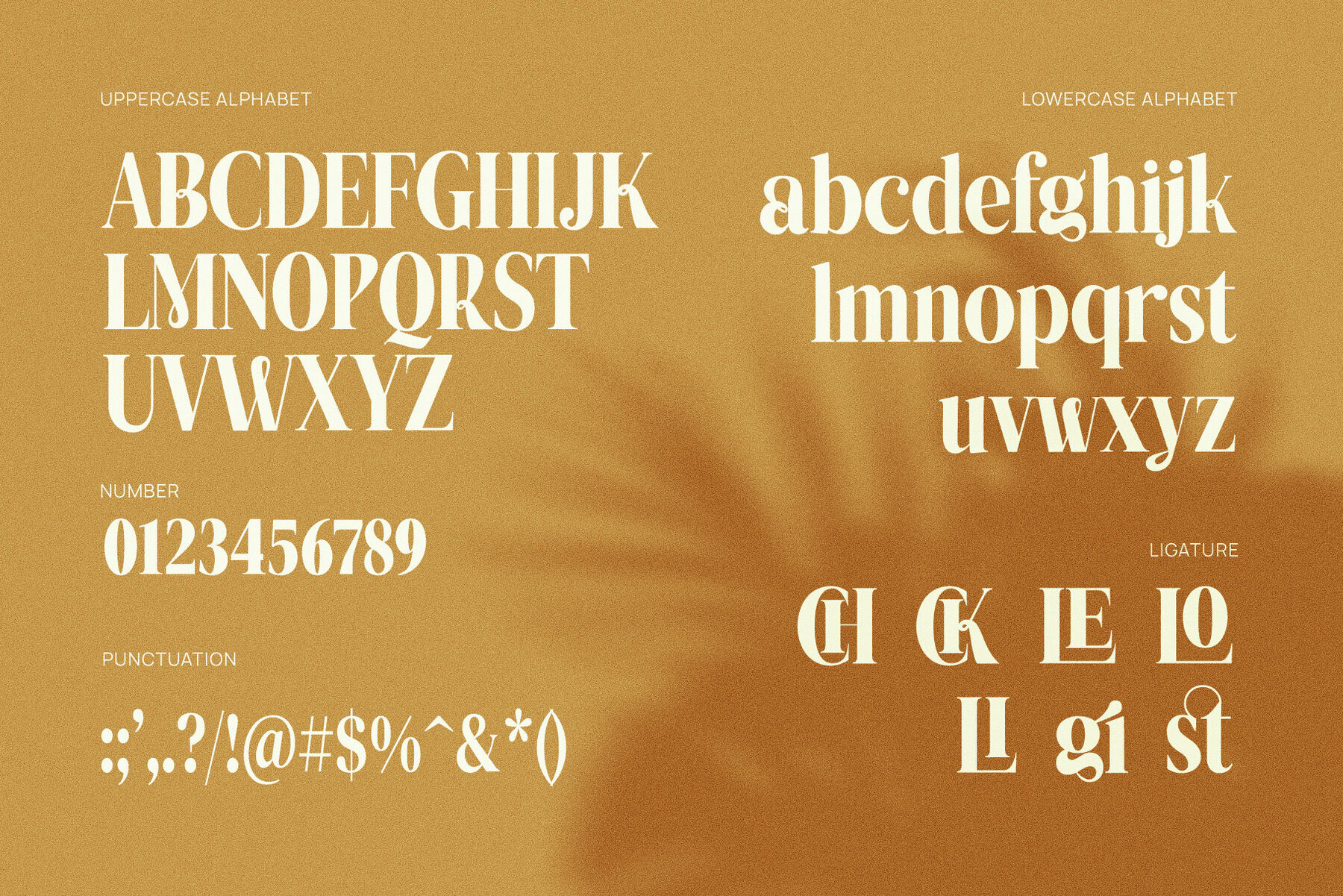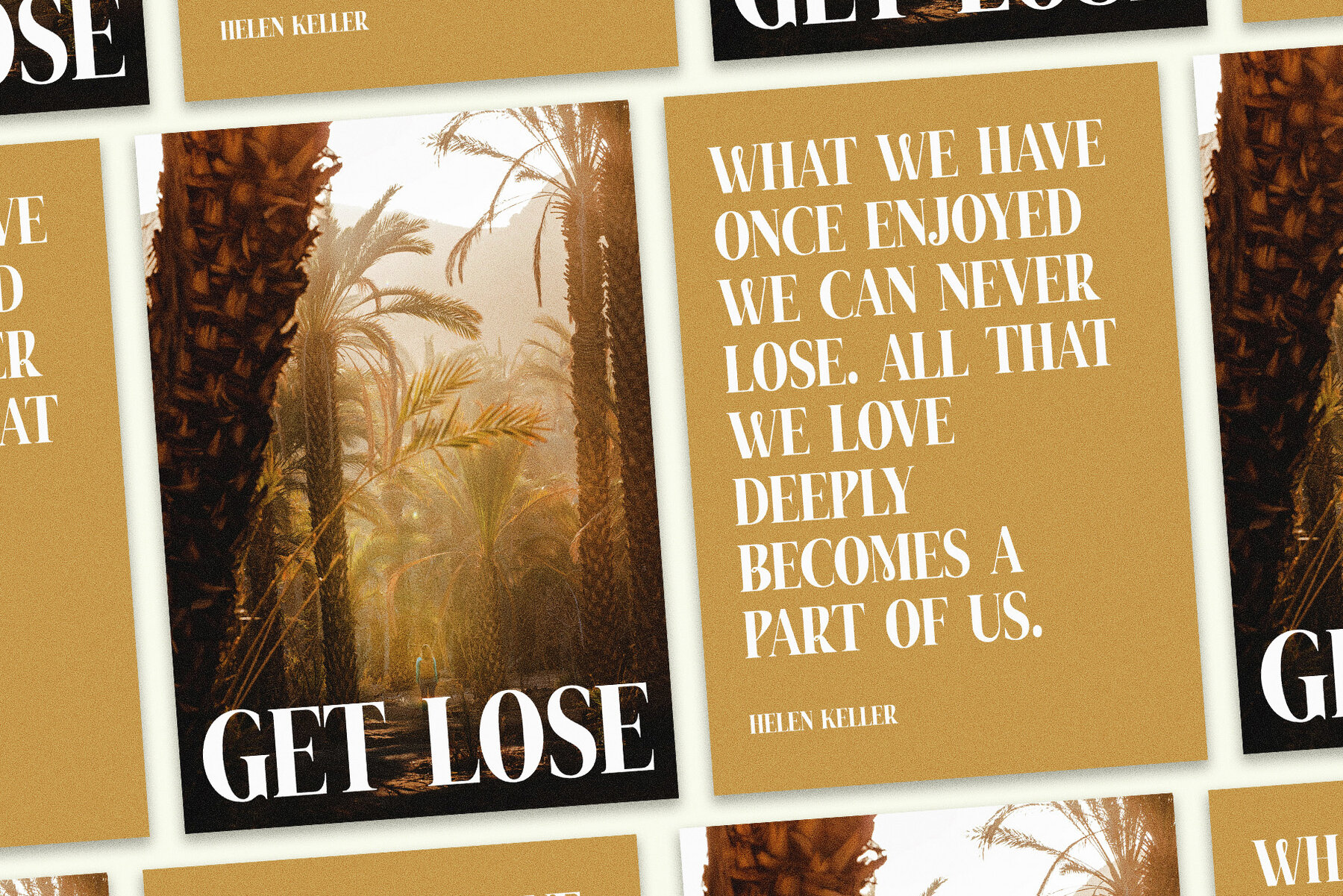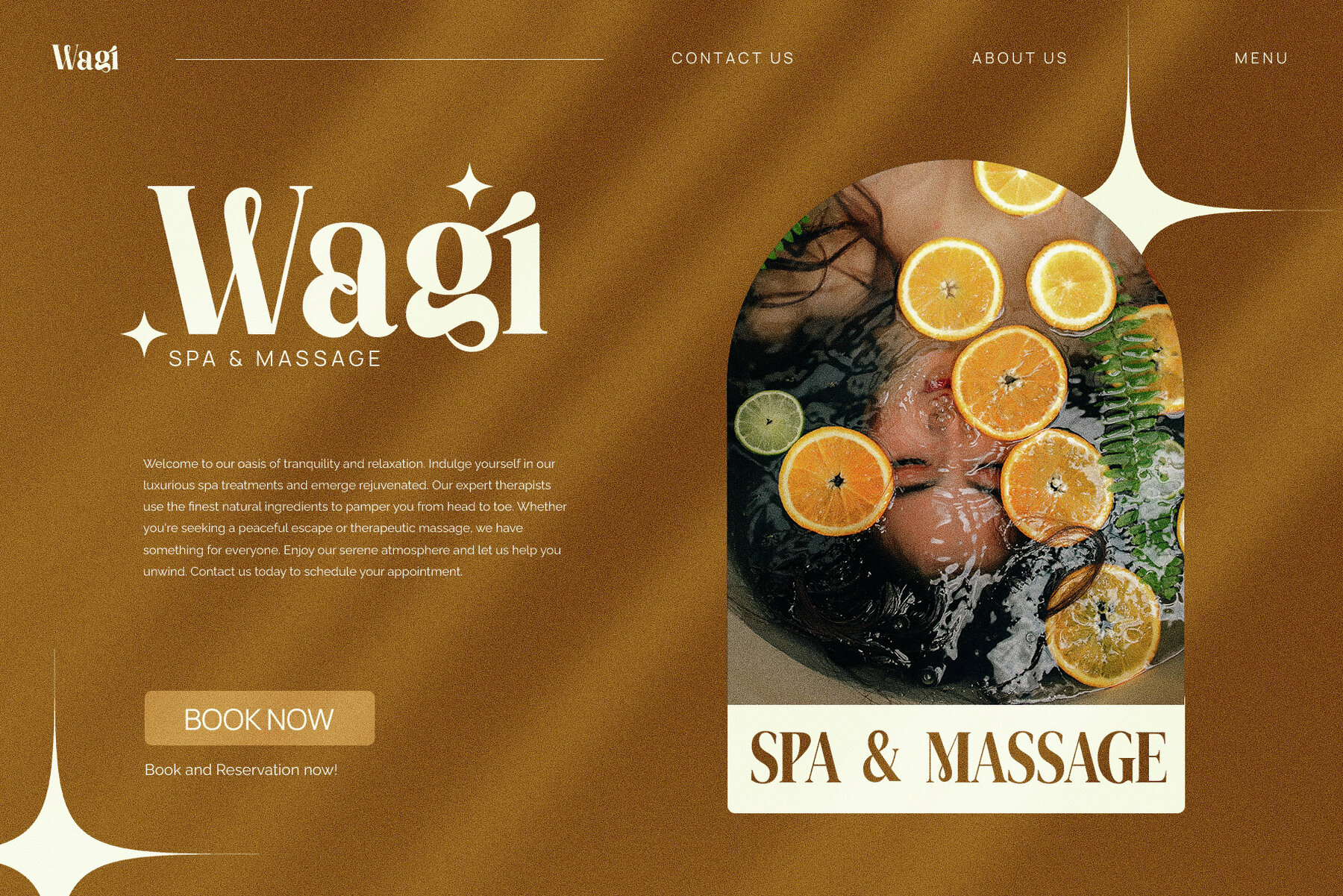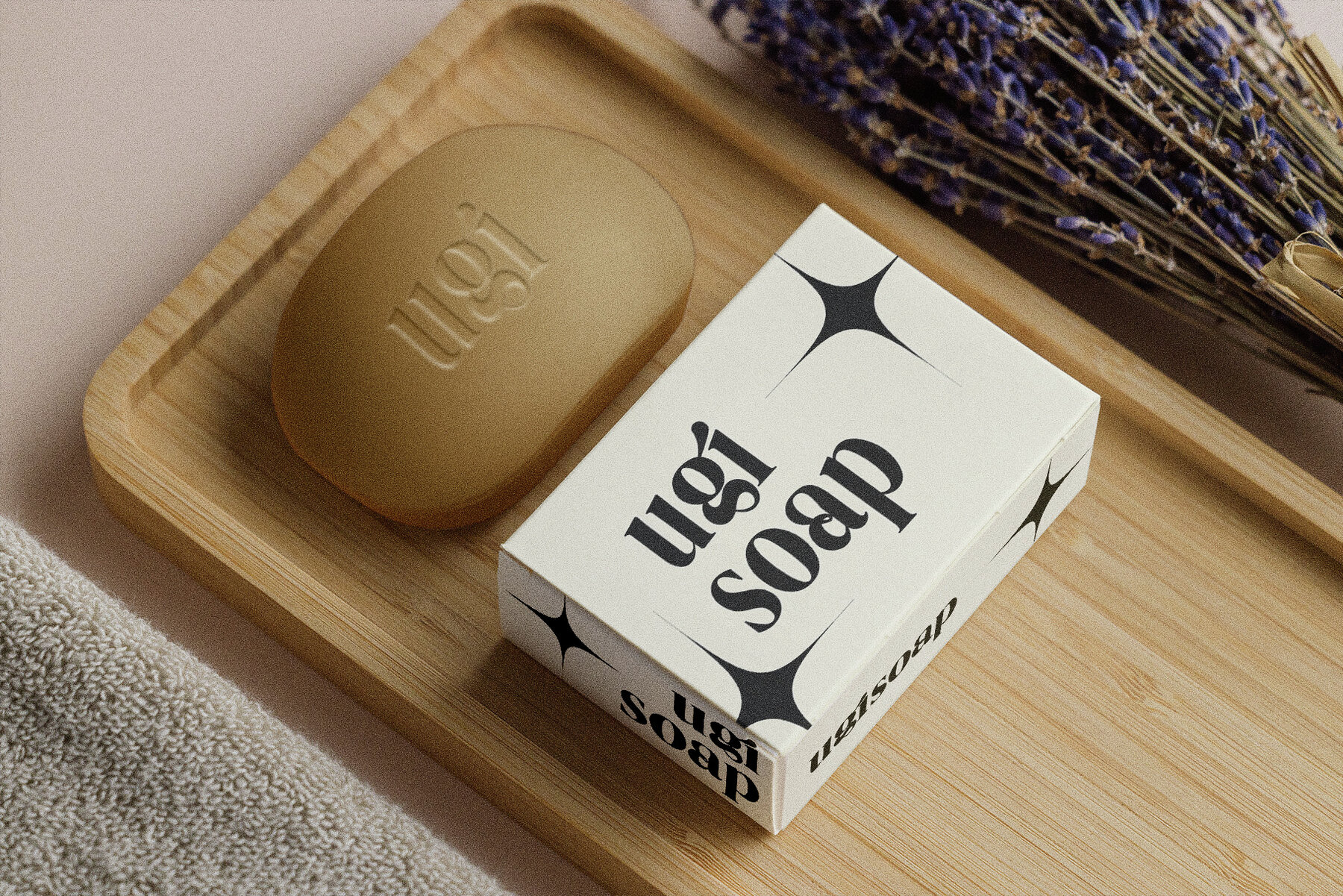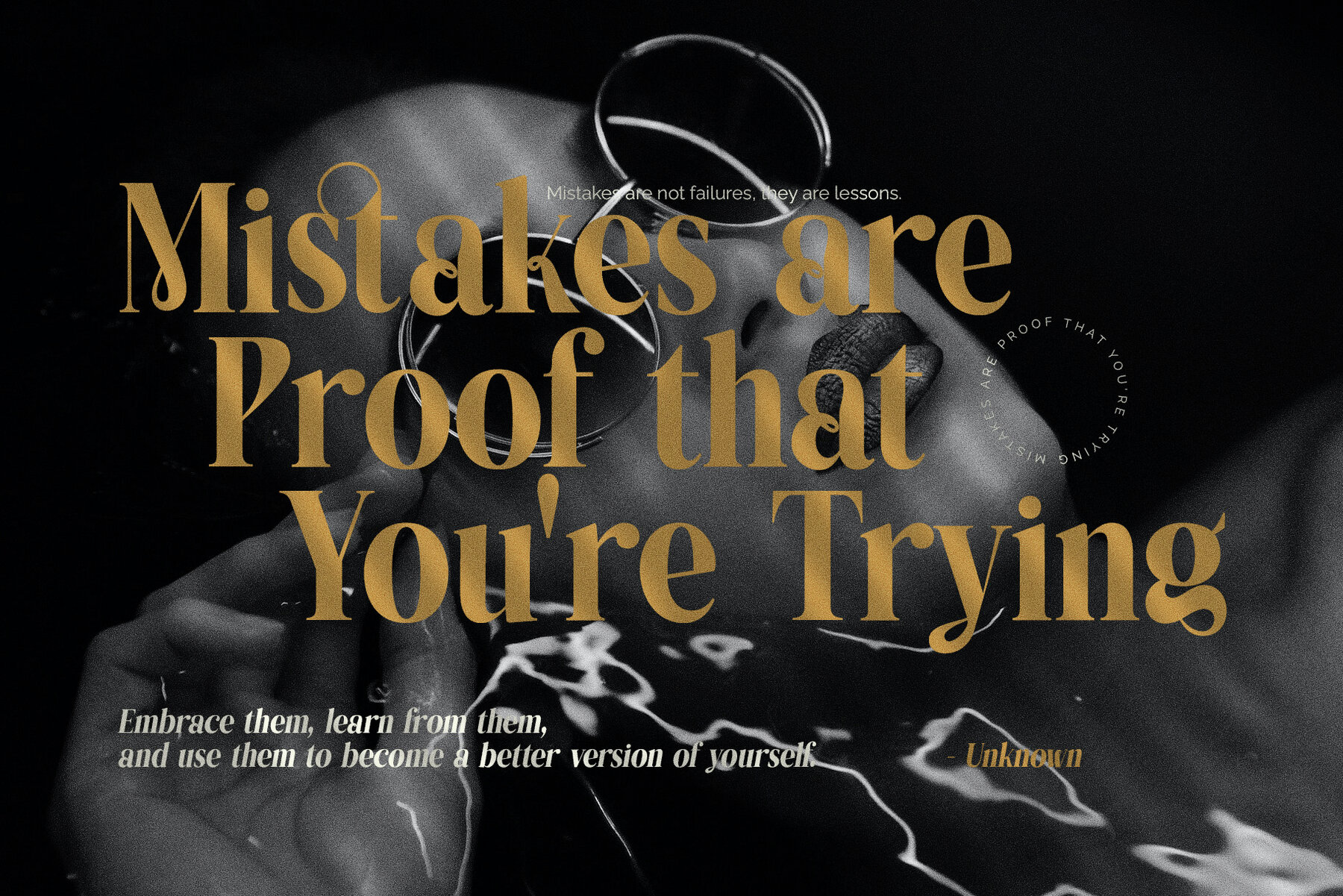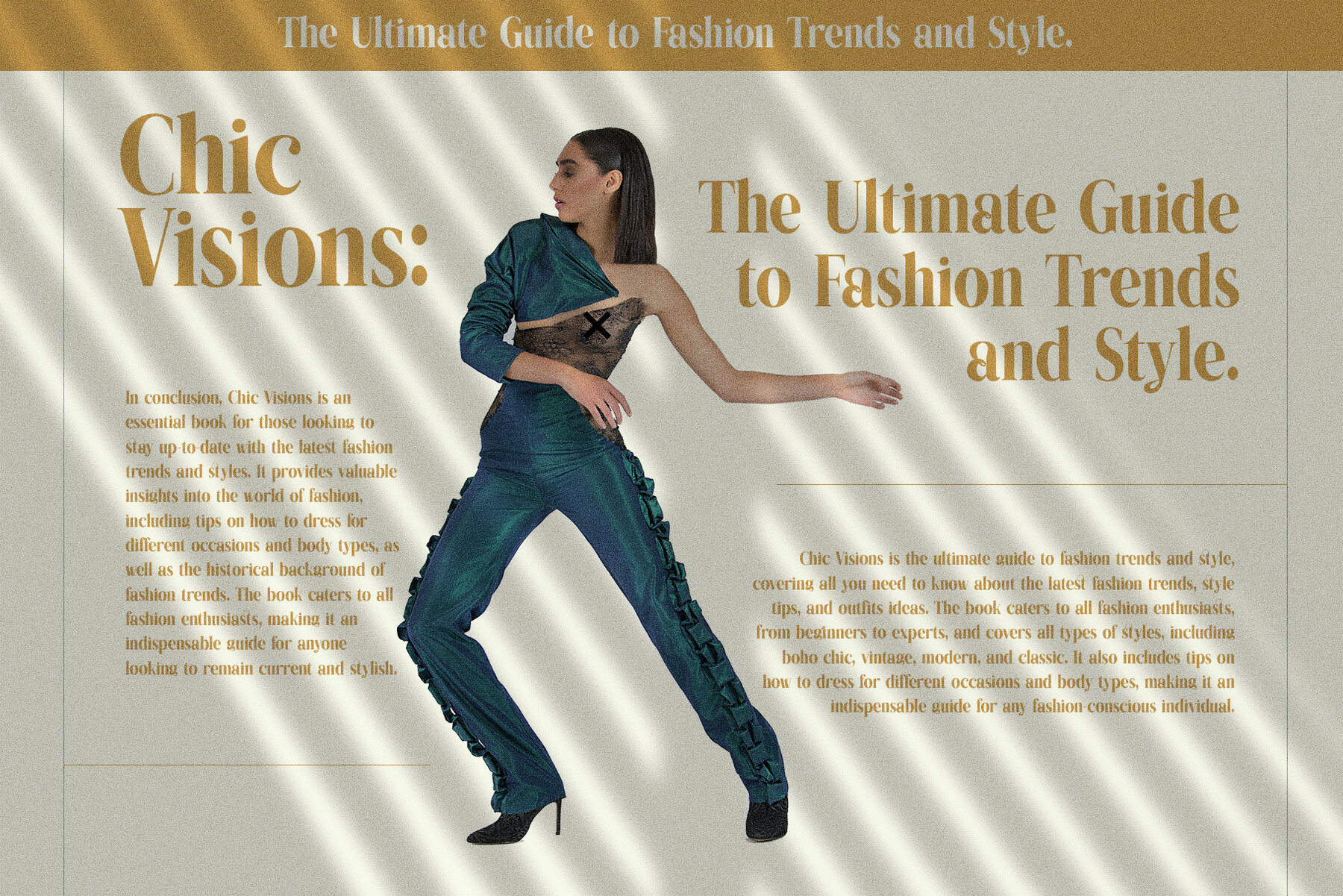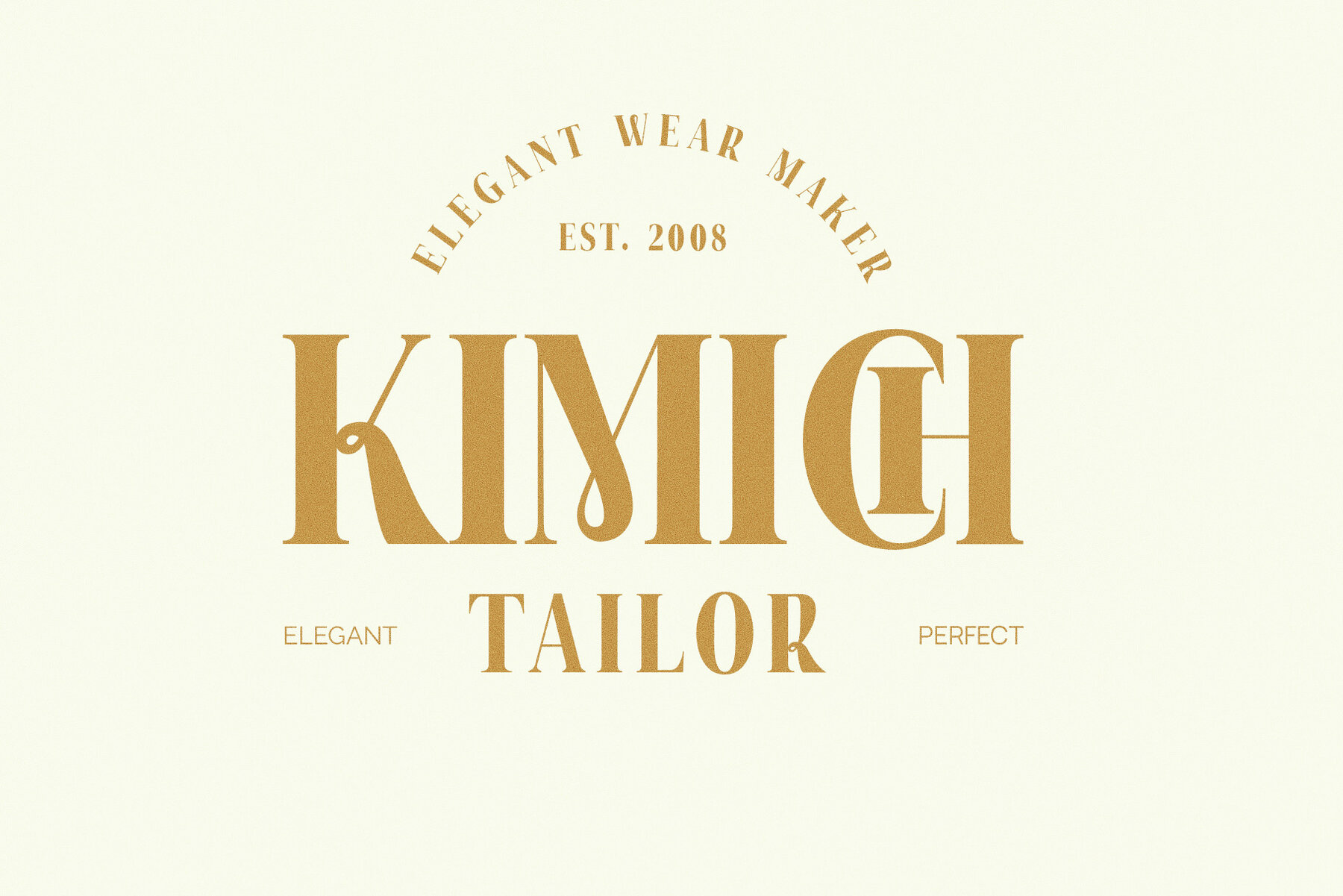
Mistar Font
Mistar Regular
Mistar is a distinctive and elegant font, perfect for branding and logo design. This serif typeface merges classic elegance with modern style, making it ideal for a wide range of projects. With its high level of readability, Mistar ensures your designs stand out while maintaining elegance.Mistar: Elegant Serif for Branding and Logos